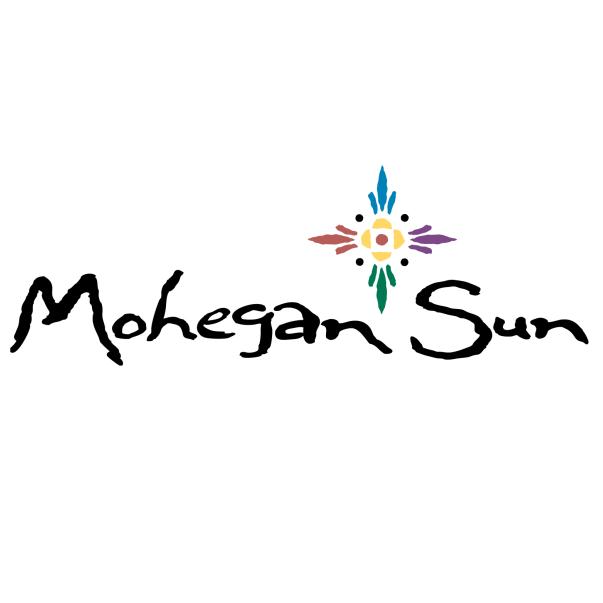
Mohegan Sun Logo Font
The most similar font to the Mohegan Sun logo is Rougfhouse, a rough and hand-drawn typeface from House Industries. More information can be found here.